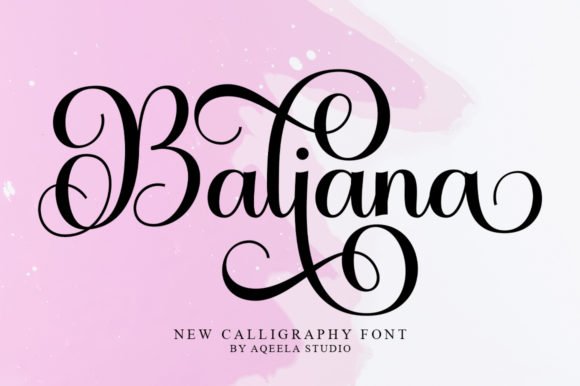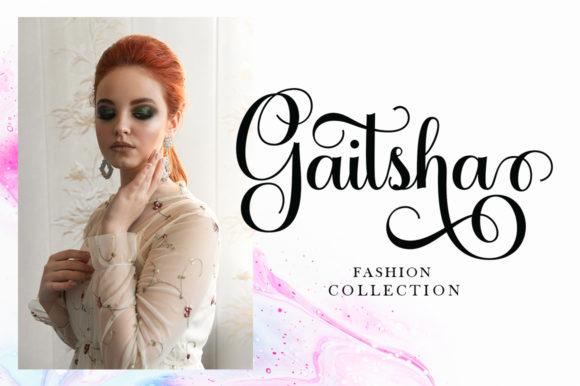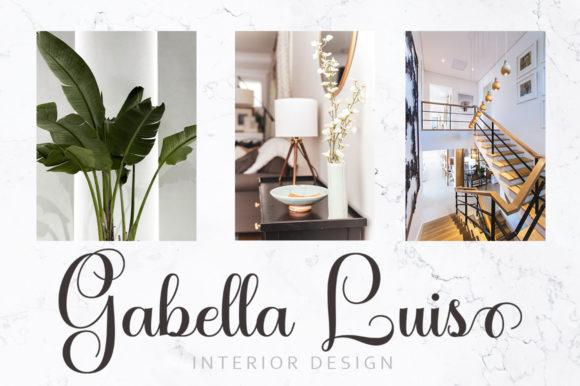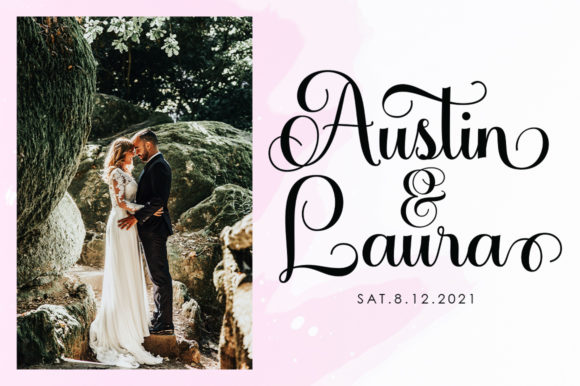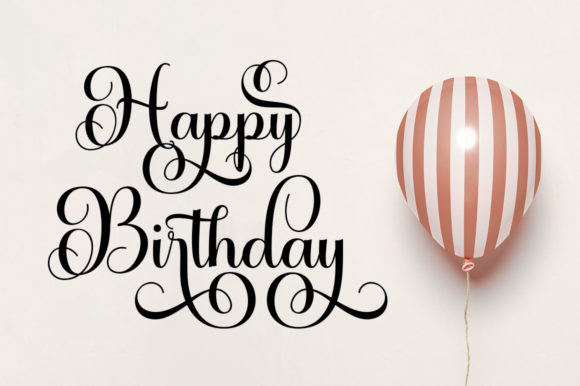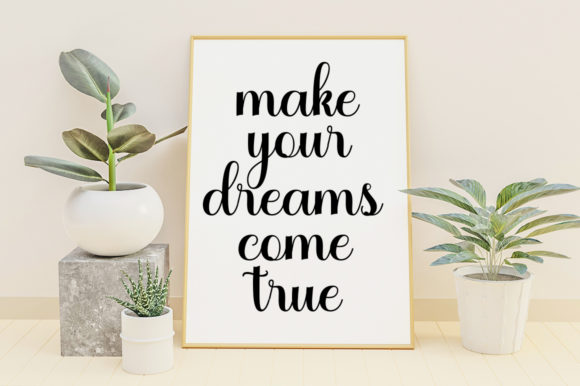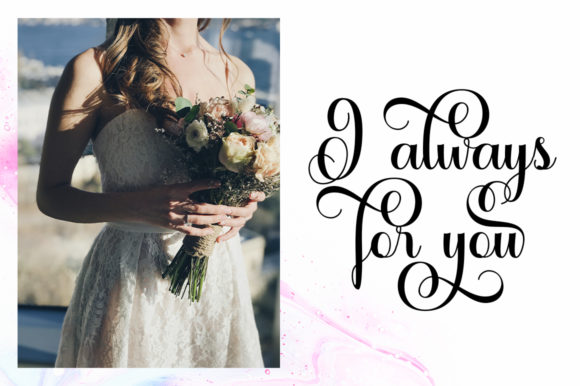
The Perfect Font for Your Next Masterpiece
As a designer, there’s nothing quite like the thrill of discovering the perfect font to elevate your project. It’s that moment when all the pieces fall into place, and your vision starts to take shape. You’ve spent hours browsing through font collections, and then it happens – you stumble upon a font that speaks to you. For many, that font is Baliana, an exquisite handwritten font that masterfully blends classic calligraphic influences with a modern twist.
Baliana Font is more than just a stylish addition to your design arsenal; it’s a tool that can take your projects to new heights. With its PUA encoding, you can easily access all the glyphs and swashes, giving you endless possibilities to express your creativity. Whether you’re working on a branding project, a wedding invitation, or a book cover, Baliana Font is sure to become your new favorite companion.
Baliana Font Key Features
- Unique Characteristics: Baliana Font features a unique blend of modern and traditional elements, making it suitable for various design projects, from logos to body text.
- Language Support: Supports over 200 languages, including Latin, Cyrillic, and Greek alphabets.
- Font Style: Offers a range of font styles, including Regular, Italic, Bold, and Bold Italic, to cater to different design needs.
Baliana Font Review
Overall, I was quite impressed with the Baliana font, but like any design choice, it has its pros and cons. Let’s start with the good stuff.
- ✨ Beautiful script style: The Baliana font has a stunning script style that adds a touch of elegance to any design. It’s perfect for creating a luxurious and sophisticated atmosphere.
- ✨ Highly legible: Despite its script style, the Baliana font is surprisingly legible, making it a great choice for body text or headlines.
- ✨ Wide language support: The font includes support for a wide range of languages, including Latin, Cyrillic, and Greek alphabets.
However, there are a few limitations to consider.
- ⚠️ Limited font sizes: The Baliana font looks best at larger font sizes (18pt and above). At smaller sizes, it can become difficult to read.
- ⚠️ Not ideal for body text at small sizes: While the font is legible, it’s not the best choice for body text at small sizes (12pt or smaller). It can become too ornate and difficult to read.
Overall, I’d say the Baliana font is a great choice for design projects that require a touch of elegance and sophistication. Just be mindful of its limitations and use it judiciously.
Alternatives to Baliana Font
Playfair Display is an elegant, high-end serif font suitable for formal and luxurious designs. It features intricate details and ornate flourishes. This font is ideal for wedding invitations, luxury branding, and high-end packaging.
Comparison to Baliana Font: While Baliana Font is also elegant, Playfair Display is more ornate and luxurious, making it a better choice for high-end designs. However, Baliana Font has a more vintage feel, which may be more suitable for designs that require a classic touch.
Pacifico is a beautiful, cursive script font perfect for creating a sense of relaxation and calmness. It features a smooth, flowing design that is ideal for designs that require a touch of elegance and sophistication.
Comparison to Baliana Font: Pacifico is a more casual and relaxed font compared to Baliana Font, which has a more formal feel. However, both fonts share a similar elegant and sophisticated tone, making them suitable for designs that require a touch of luxury.
Great Vibes is a modern, elegant script font that features a unique blend of classic and contemporary elements. It is ideal for designs that require a sense of sophistication and refinement.
Comparison to Baliana Font: Great Vibes has a more modern feel compared to Baliana Font, which has a more classic touch. However, both fonts share a similar elegant and sophisticated tone, making them suitable for designs that require a touch of luxury.